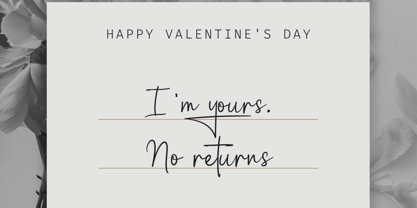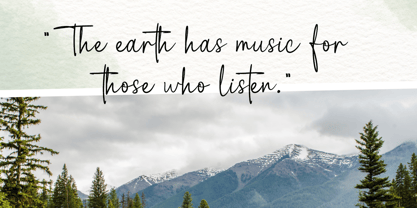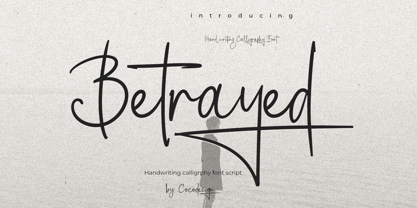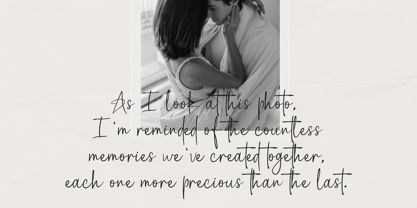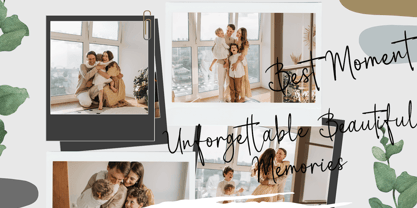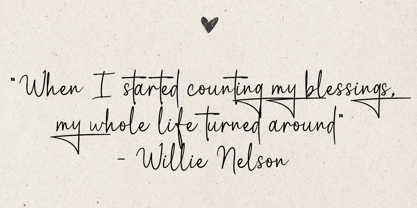
Betrayed
by Cocodesign
The Betrayed Font Family was designed by Muhammad Zaini and published by Cocodesign. Betrayed contains 1 styles.
Betrayed Font is the perfect choice to bring a natural handwritten feel with a touch of elegant aesthetics. Designed to resemble everyday handwriting, this font has a smooth, simple, and attractive character. The combination of simplicity and elegance makes this font suitable for various creative design needs, such as invitations, posters, product packaging, or branding elements. With a versatile and aesthetic appearance, this font adds value to various types of design projects.
Designers: Muhammad Zaini
Publisher: Cocodesign
Foundry: Cocodesign
Design Owner: Cocodesign